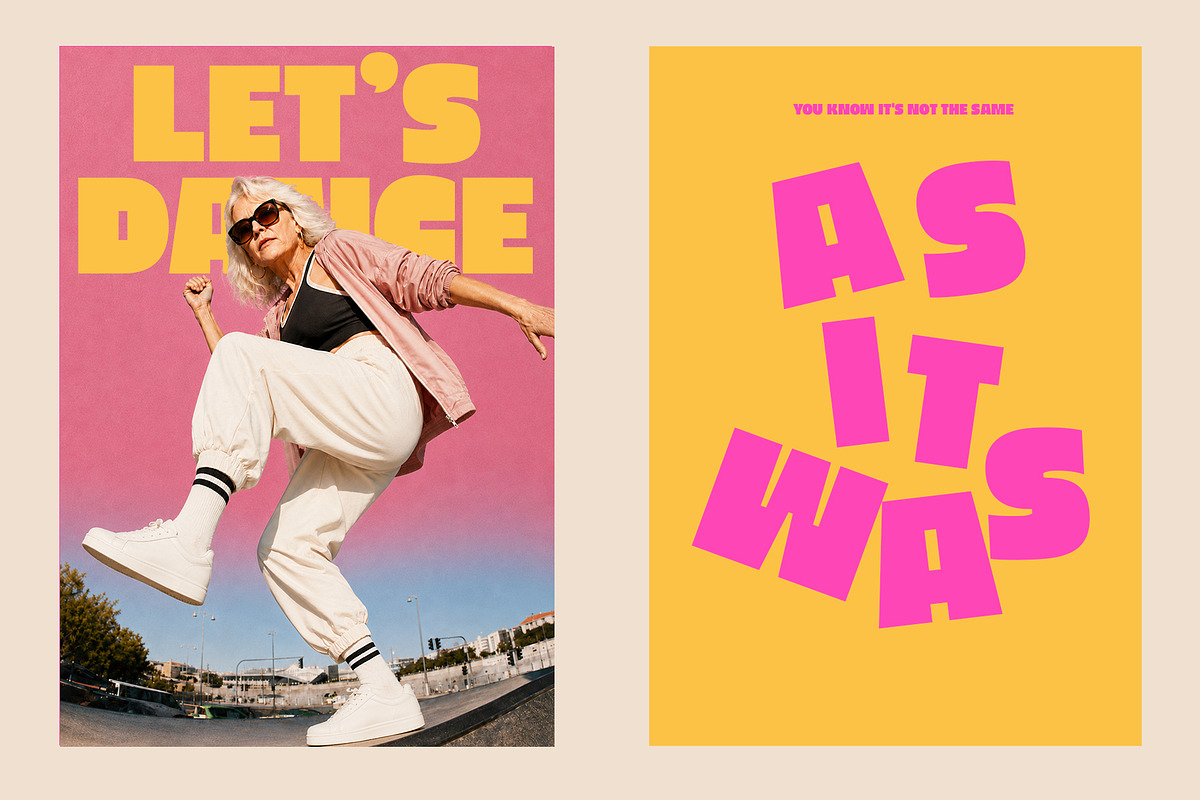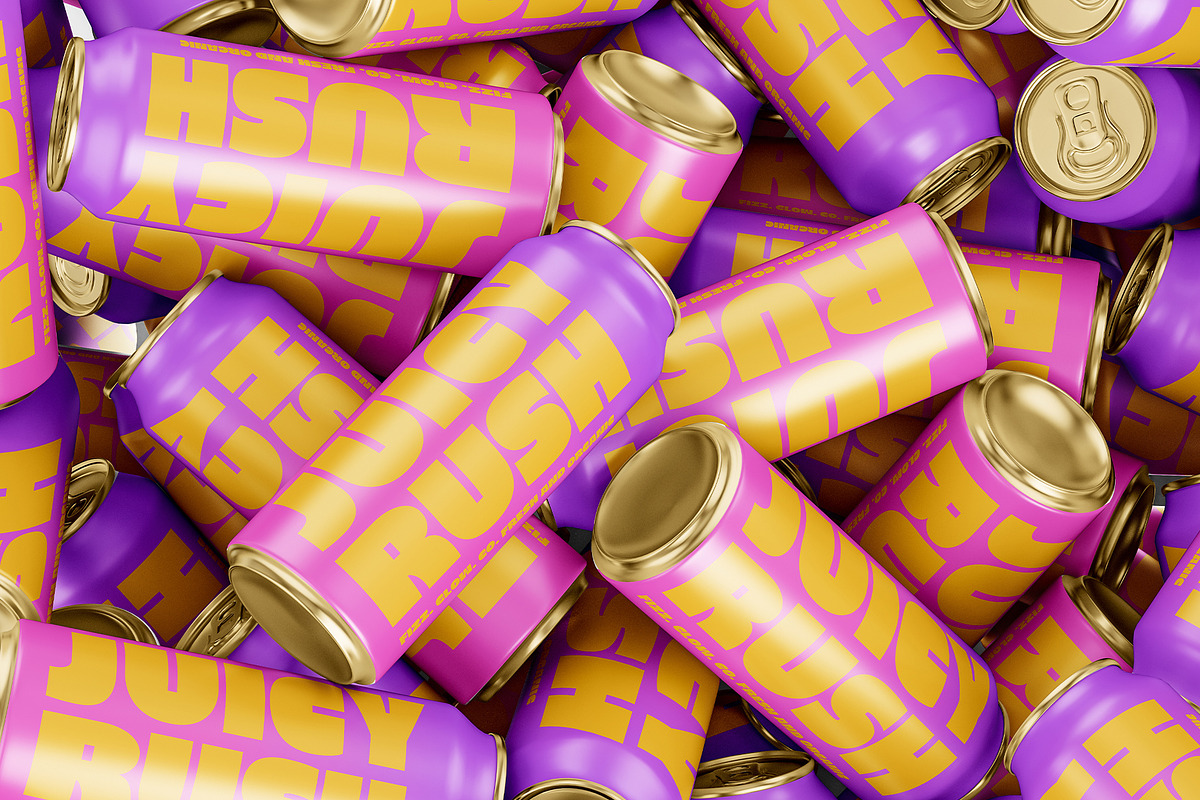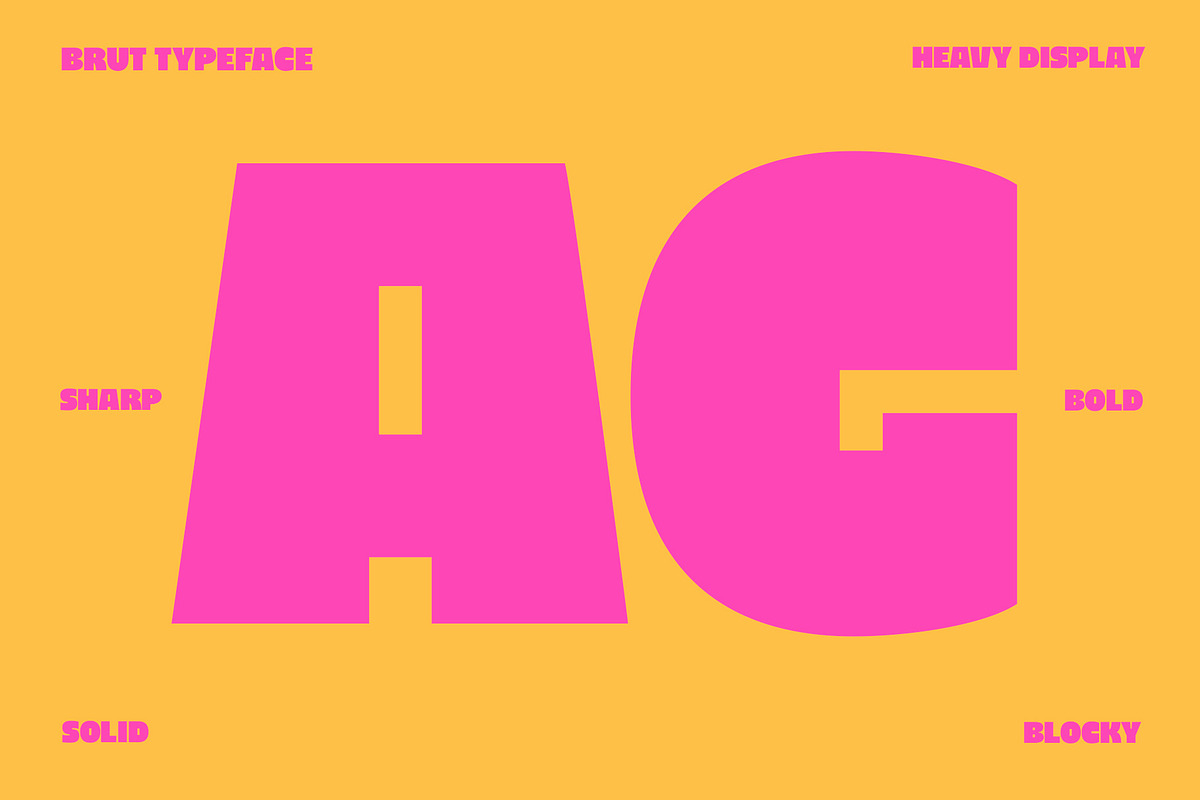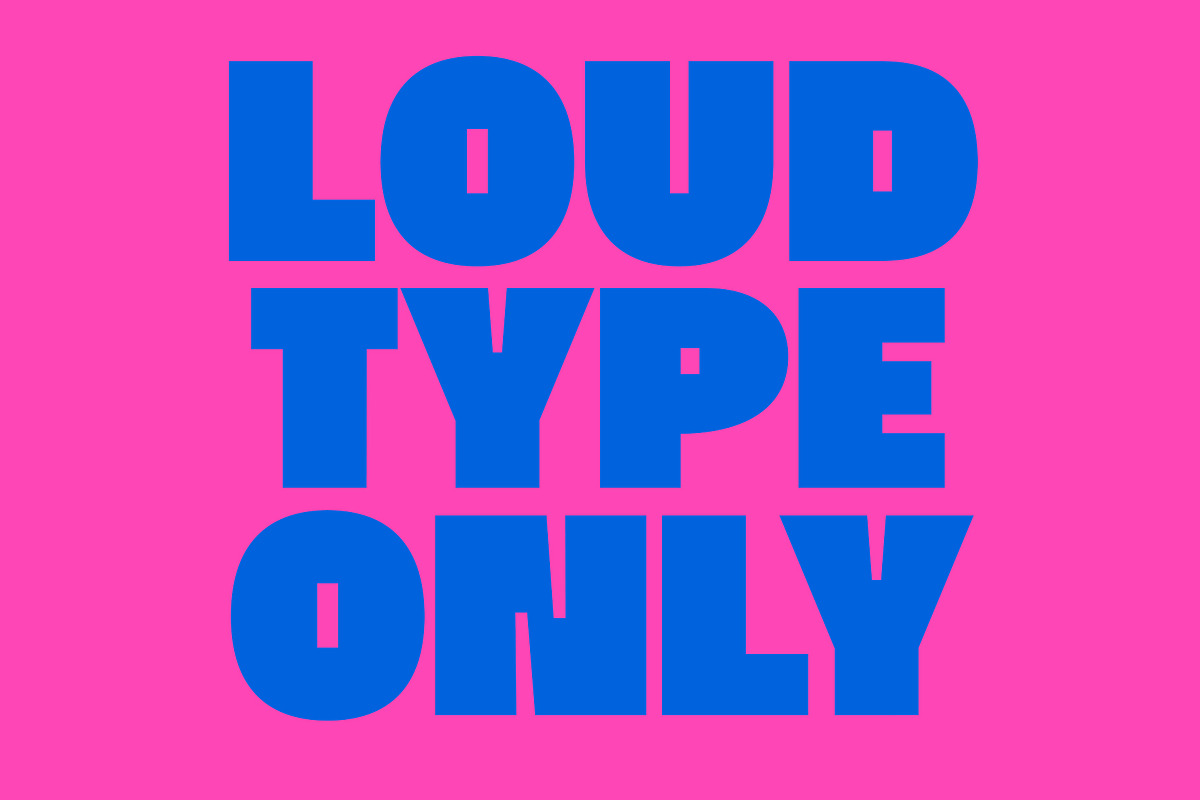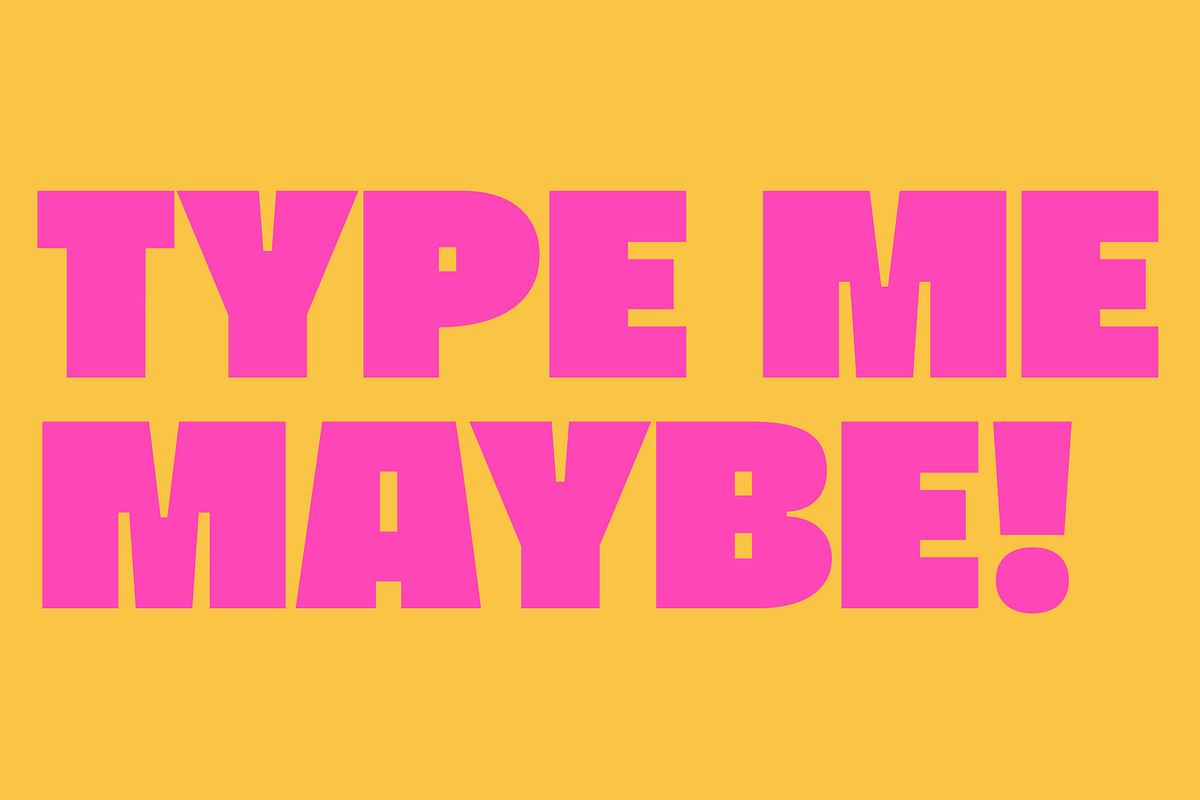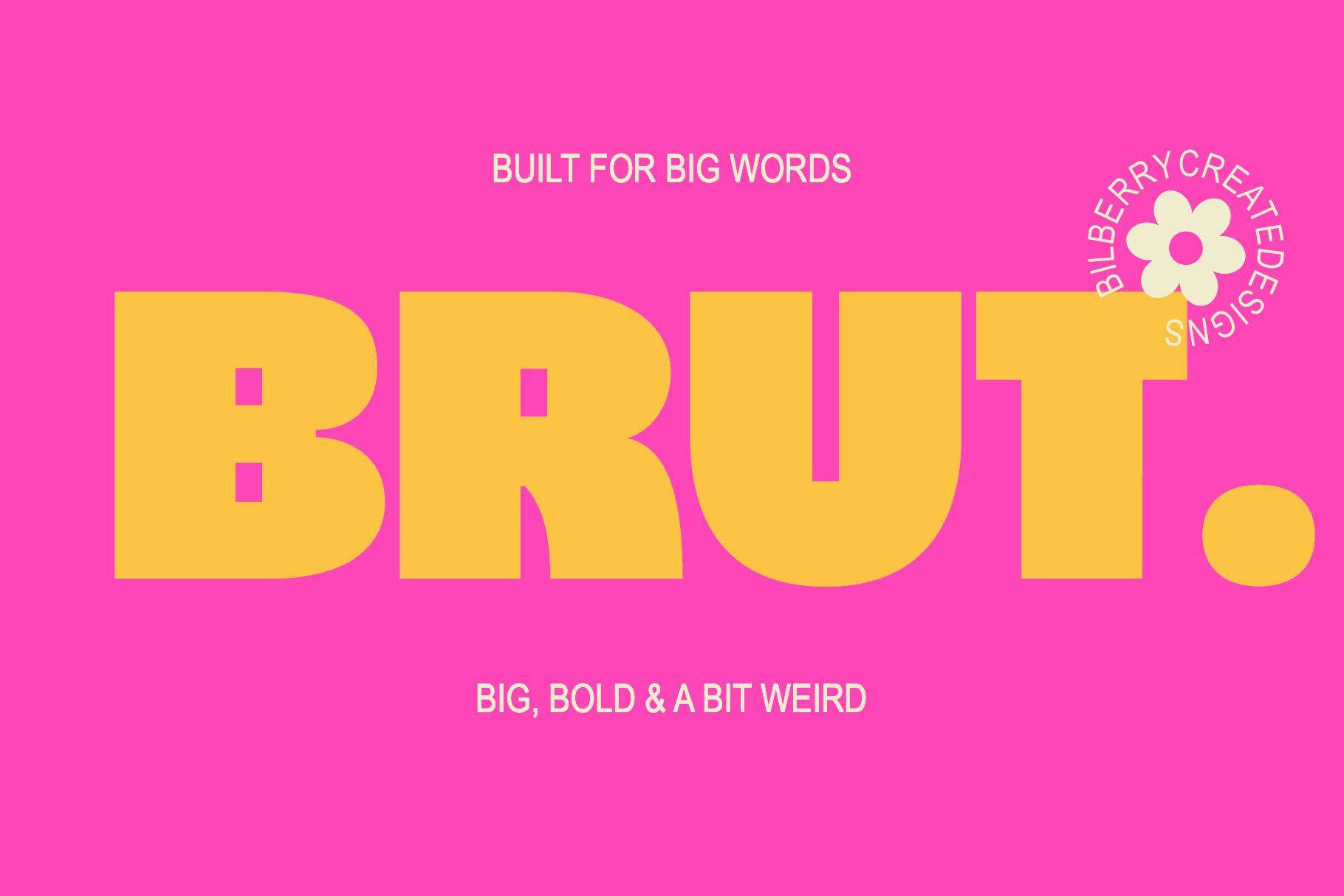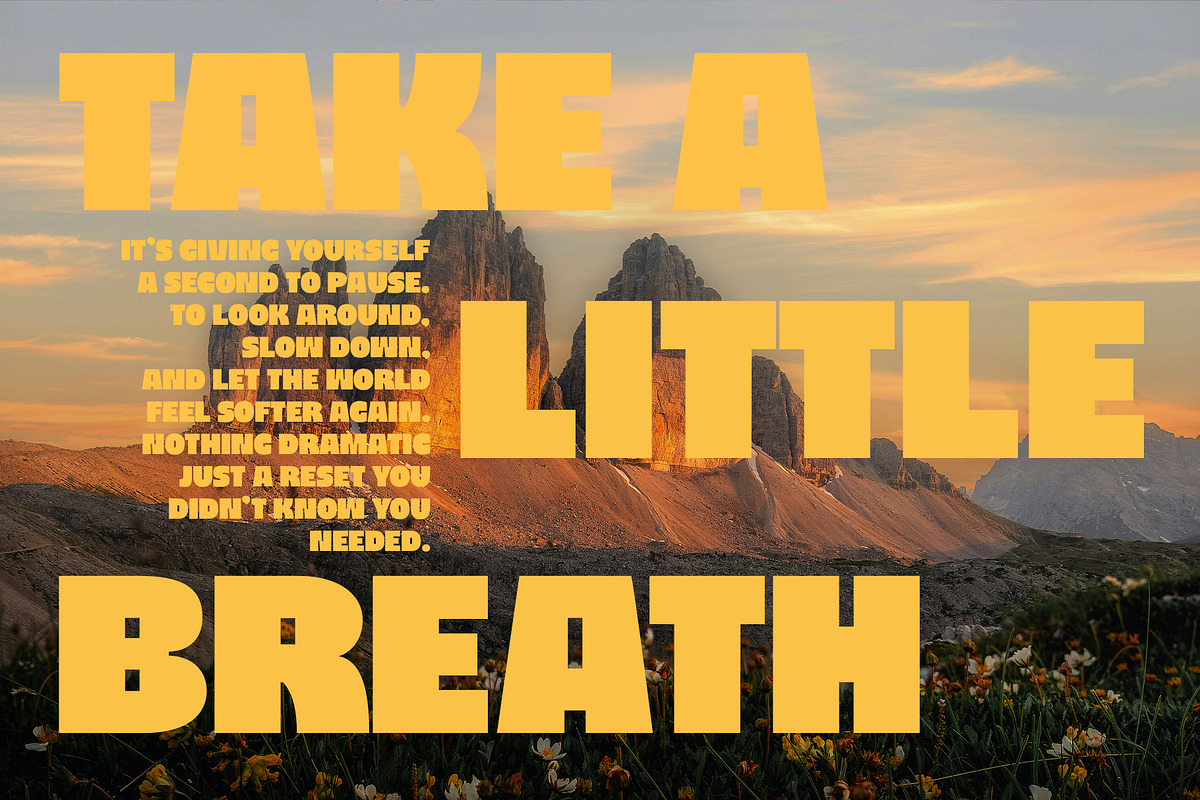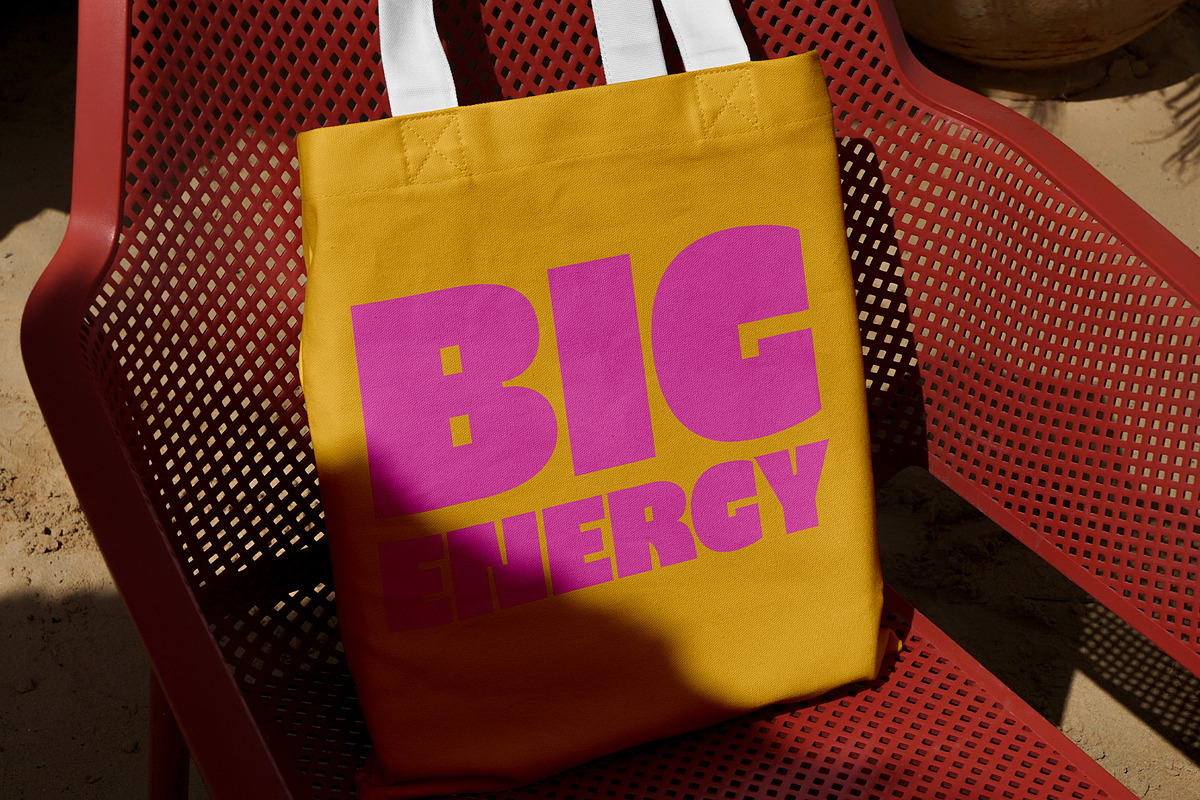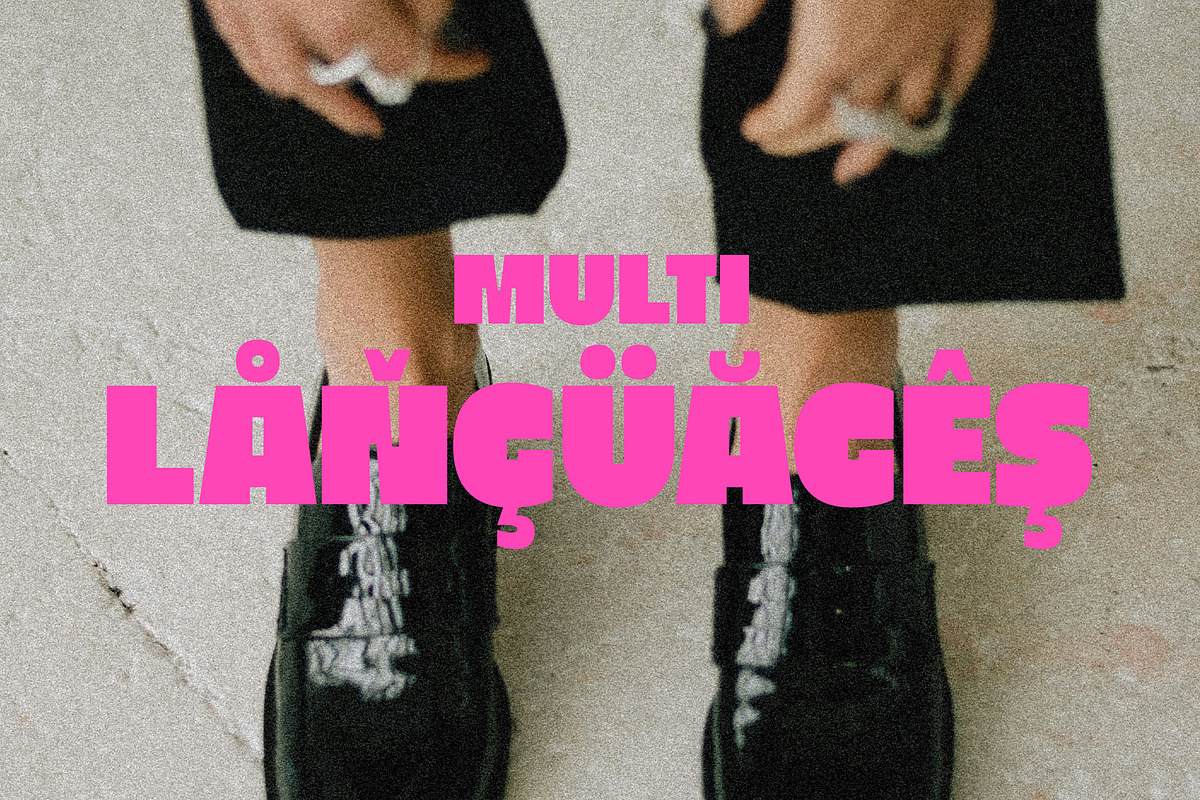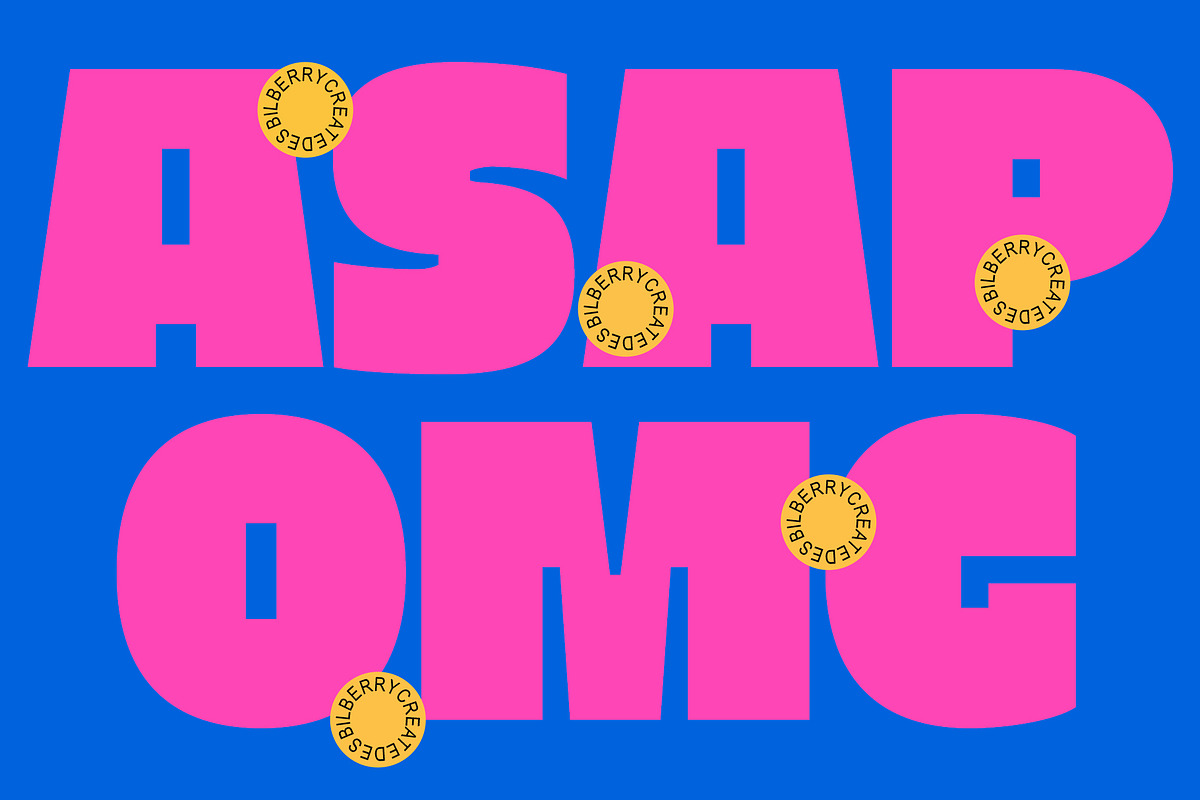
BRUT - Bold Display Sans Serif Font
BRUT is a bold display sans serif built for big words. Heavy, blocky and a little weird, it combines chunky shapes with playful details to give headlines an instantly recognizable character.
Designed to stand out, BRUT works especially well for posters, branding, packaging, editorial layouts, social media graphics, merch and anything that needs loud typography with personality.
BRUT supports an extended Latin character set, including accented characters and diacritics for multilingual typesetting.
Big, bold & a bit weird - that’s BRUT.